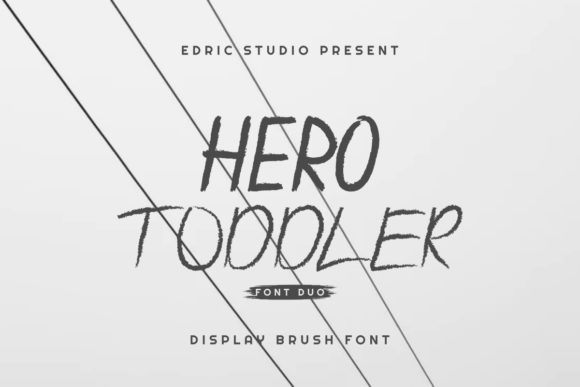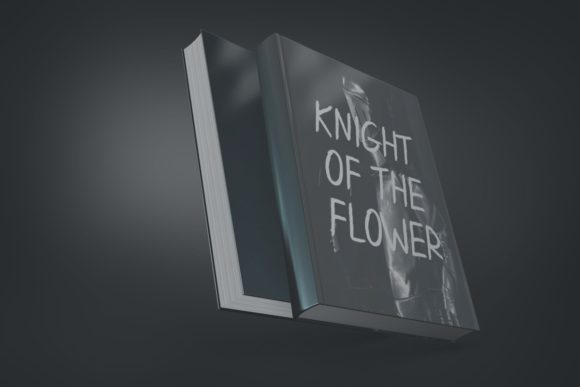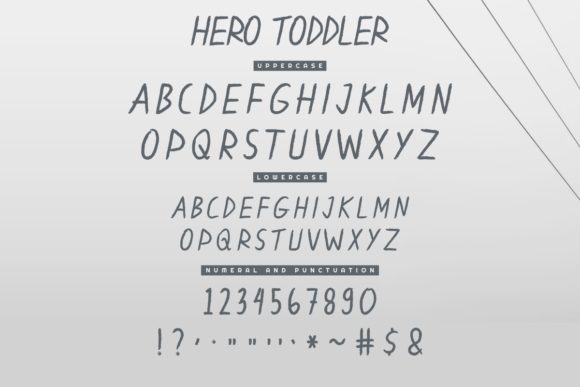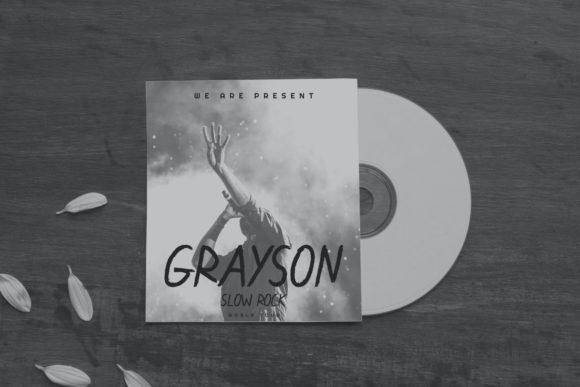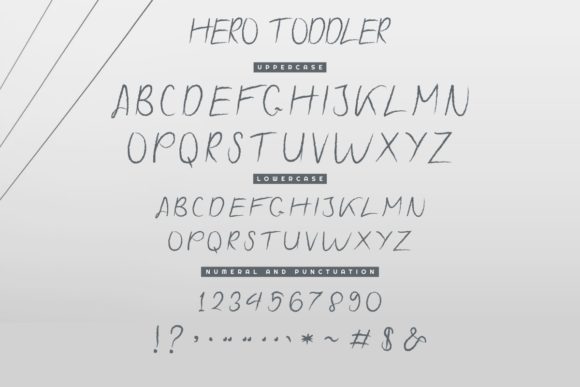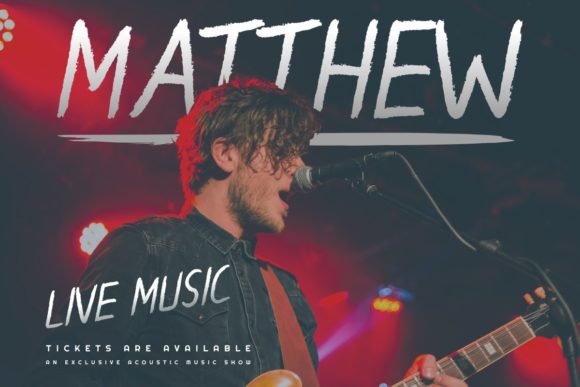
Introduction to Hero Toddler Font
Remember that moment when you finally find the perfect design element for your creative project? It’s like the puzzle pieces fall into place, and your vision becomes a reality. For designers, this feeling is priceless, and it’s what drives us to keep pushing the boundaries of creativity. Recently, I stumbled upon the Hero Toddler Font, and I just had to share it with the world.
This simple yet elegant font is a game-changer for any design project. With its clean lines and transparent background, it adds a touch of sophistication to even the most basic designs. Whether you’re working on a branding project or a social media graphic, the Hero Toddler Font is sure to make your creative ideas stand out. Plus, it’s available for a free download, making it a valuable resource for designers of all levels.
Key Features of Hero Toddler Font
- Unique, hand-drawn design ideal for creative projects and personal branding.
- Transparent background option allows for seamless integration with various design elements.
- Perfect for parents, kids’ products, and family-related creative projects.
Honest Review: Hero Toddler Font
I recently stumbled upon the Hero Toddler Font, and I have to say, it’s a delightful addition to any creative project. As a designer, I appreciate the effort that went into creating a high-quality, free download that can elevate any design. The font’s playful and energetic vibe is perfect for kids’ illustrations, branding, and more.
Here are some things that work well: ✨ The font’s transparent background makes it easy to combine with other elements, ✨ it’s highly customizable, and ✨ the design is clean and modern.
However, there are some limitations to consider: ⚠️ the font might not be suitable for formal or corporate projects, ⚠️ it’s not as versatile as some other fonts, and ⚠️ the character set could be more extensive.
Overall, I’m impressed with the Hero Toddler Font. It’s a fantastic resource for designers looking to add a touch of whimsy to their creative project. With its free download and high-quality design, it’s definitely worth checking out.
- Playful and energetic vibe
- Customizable
How to Use Hero Toddler Font
The Hero Toddler Font is commonly used in children’s book designs, nursery decor, and educational materials. Its playful and whimsical design makes it perfect for creating fun and engaging content for kids.
To get the most out of the Hero Toddler Font, use it with a transparent background to create a sense of depth and dimension. Experiment with different font sizes and colors to add visual interest to your design. You can also use the font in combination with other design elements, such as illustrations and graphics, to create a unique and eye-catching design.
Q: Does the Hero Toddler Font have a transparent background?
Yes, the Hero Toddler Font comes with a transparent background, making it easy to layer over images or other design elements. This feature is especially useful for creative projects where you need to add text to a complex background.